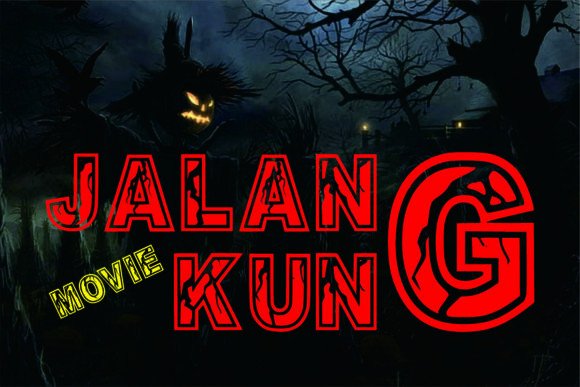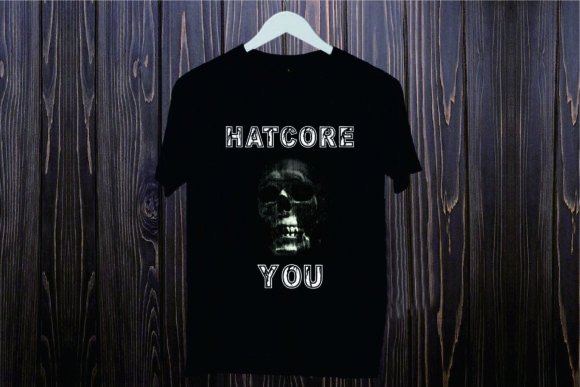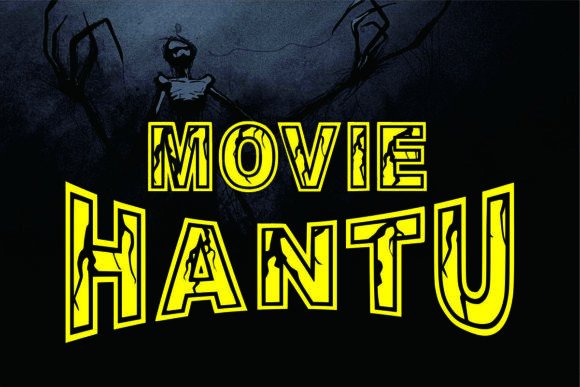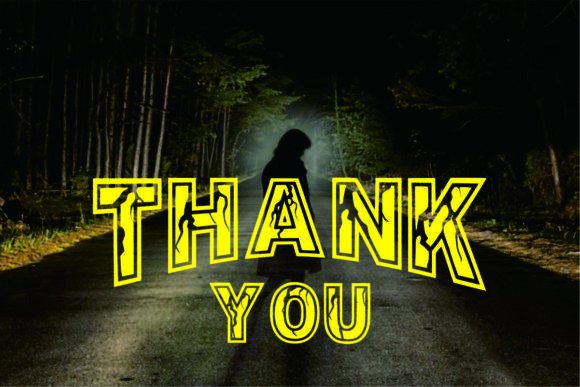
Introduction to Lostrong Font
Lostrong is a spooky display-style font that symbolizes strength and courage.
You can use it for box movie themes, logos, T-shirts, backgrounds, and more Add these fonts to your favorite creative ideas and see how they come to life.